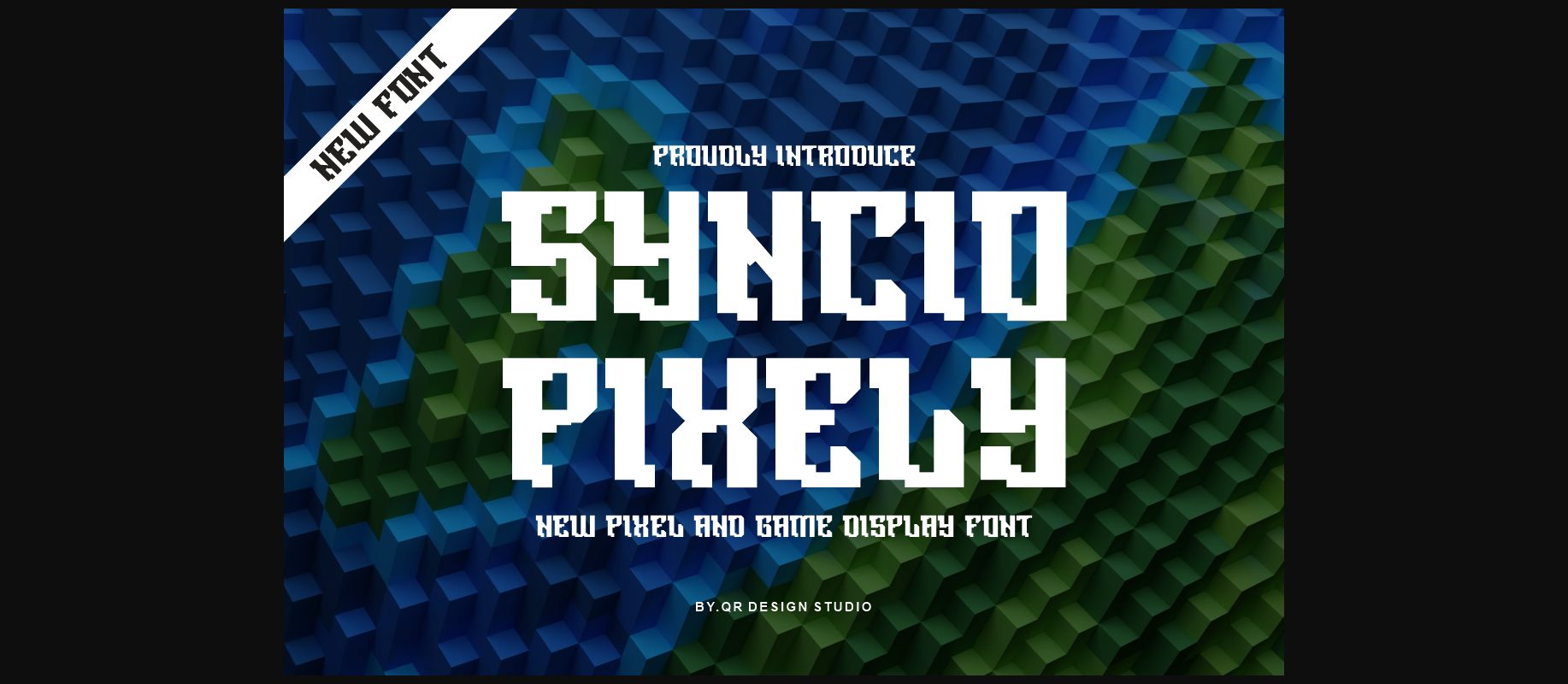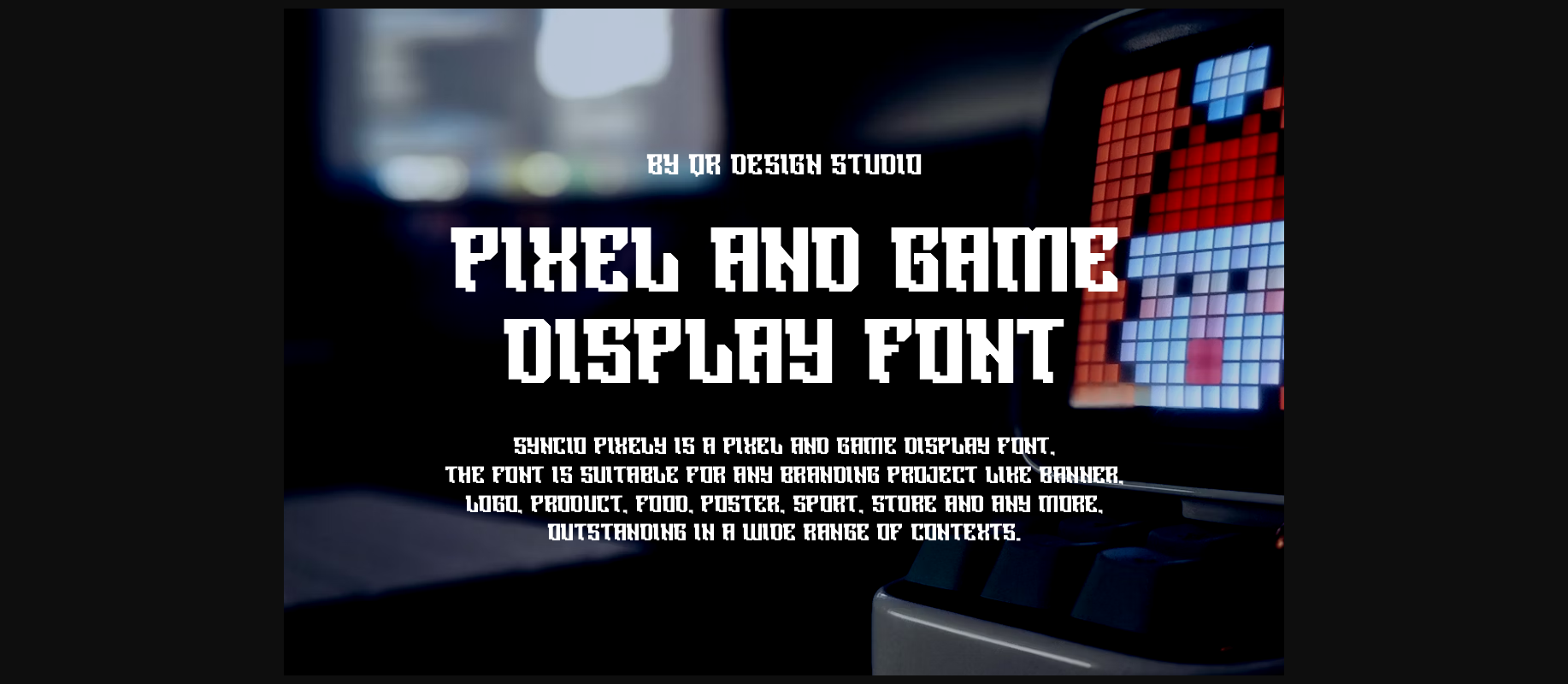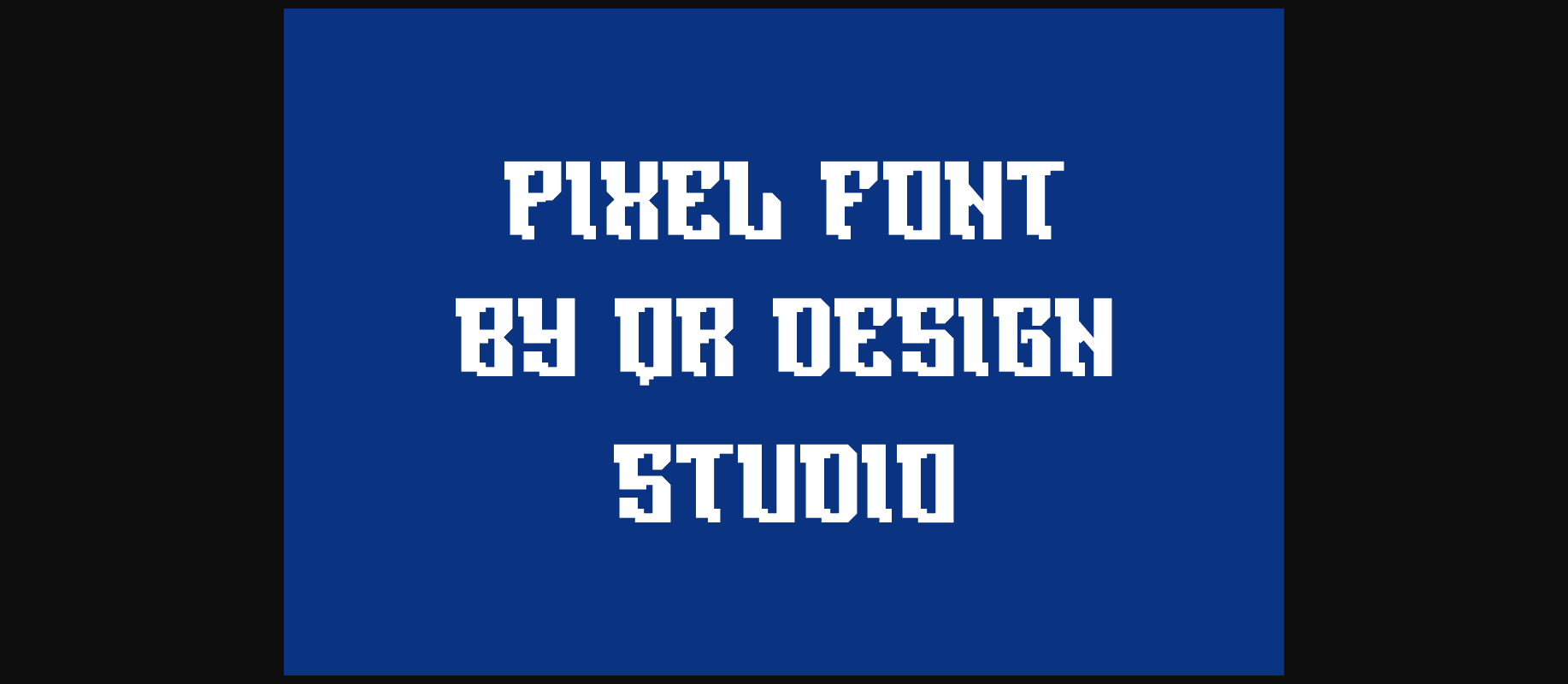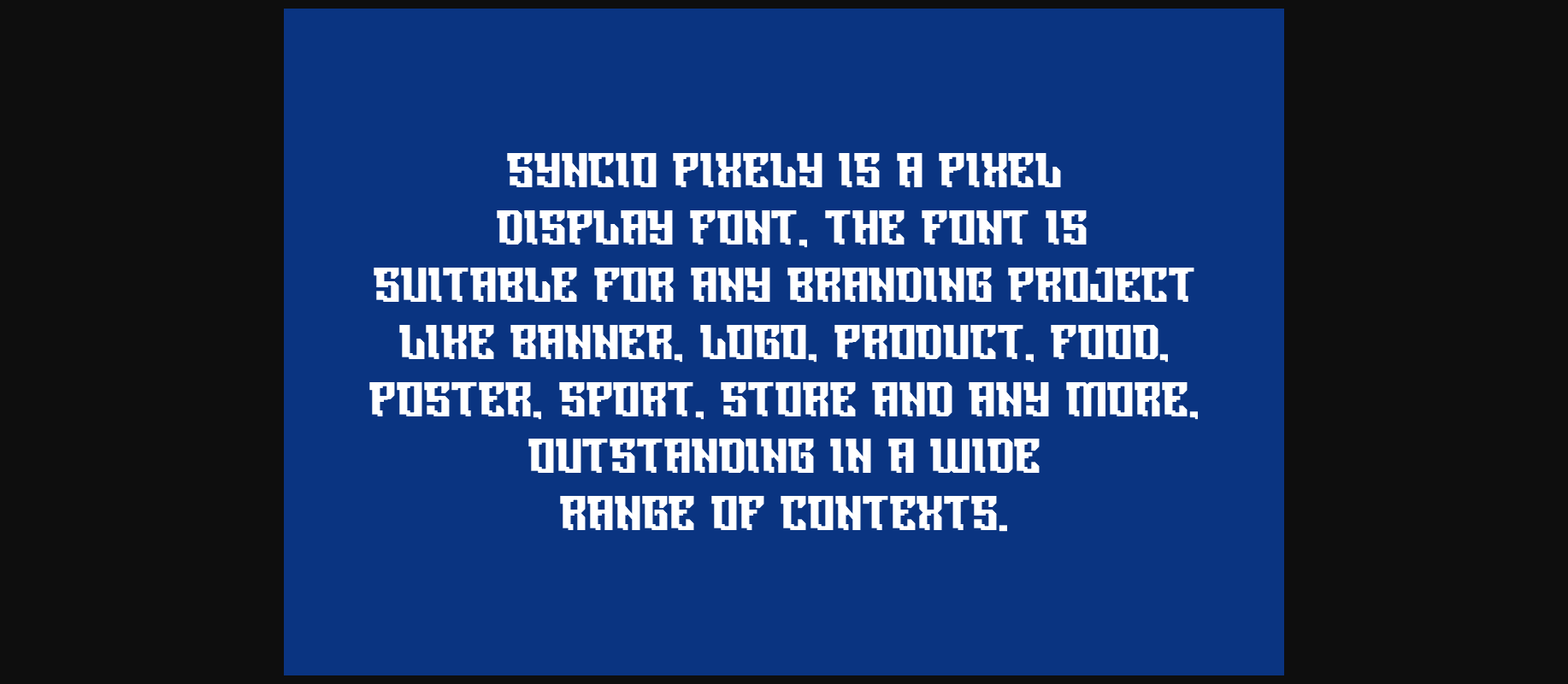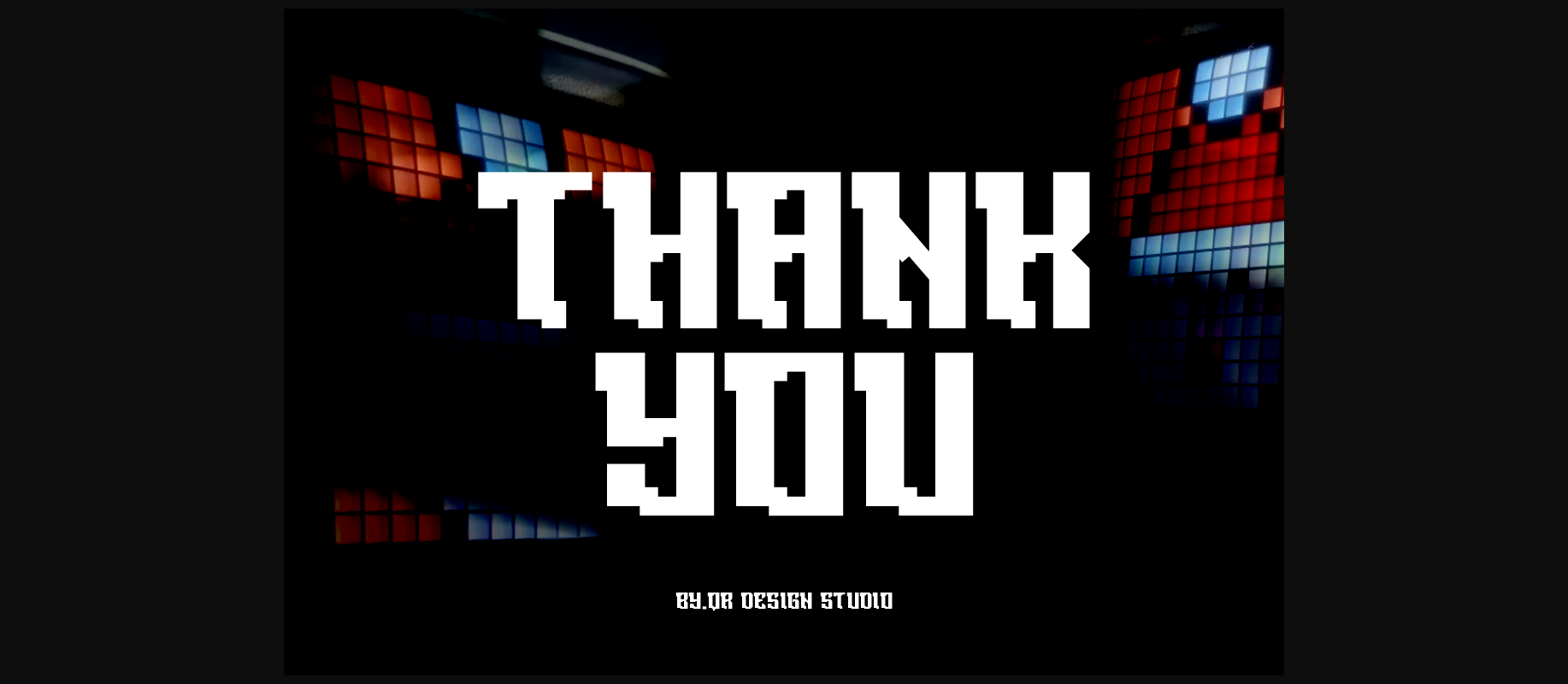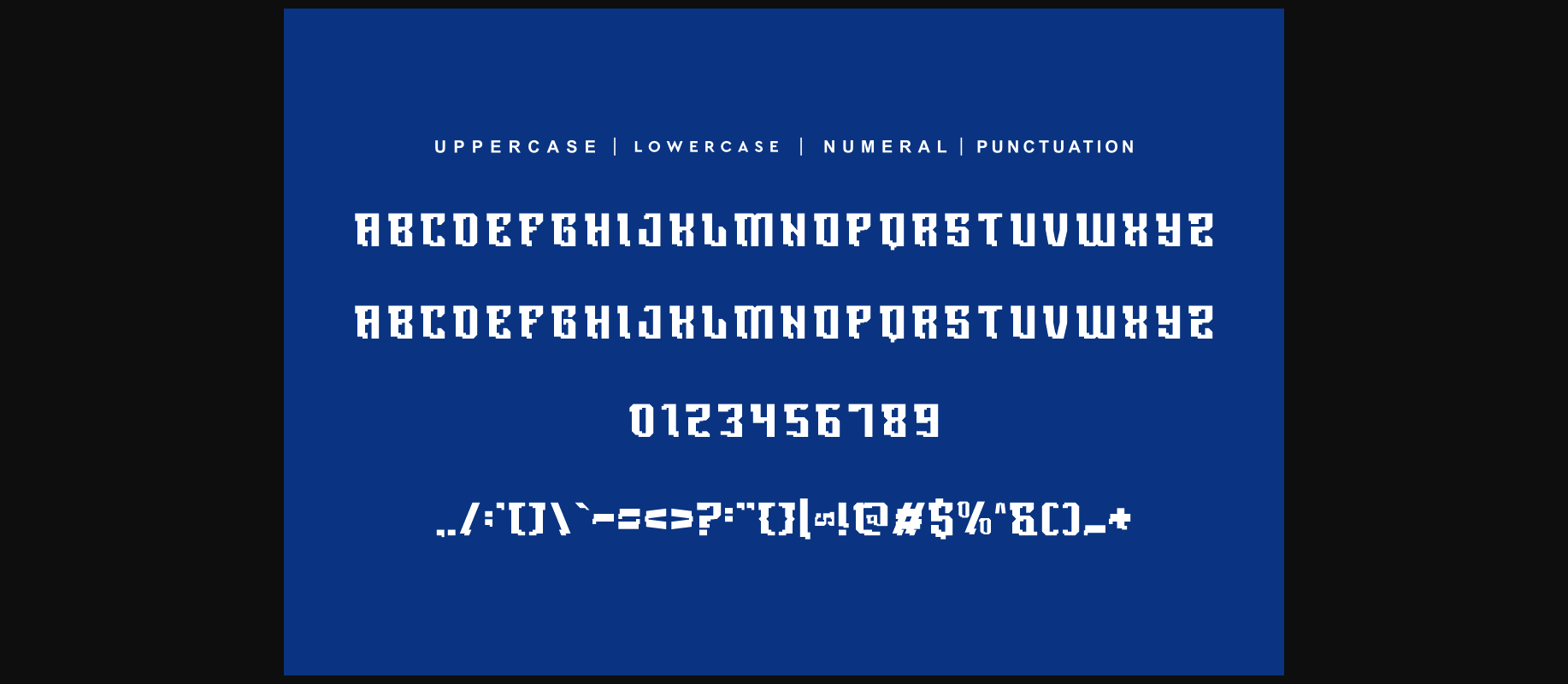
Syncio Pixely Font
About Syncio Pixely Font
Syncio Pixely is a bold and authentic display font. The font is suitable for any branding project like logo, sport, social media and many more.